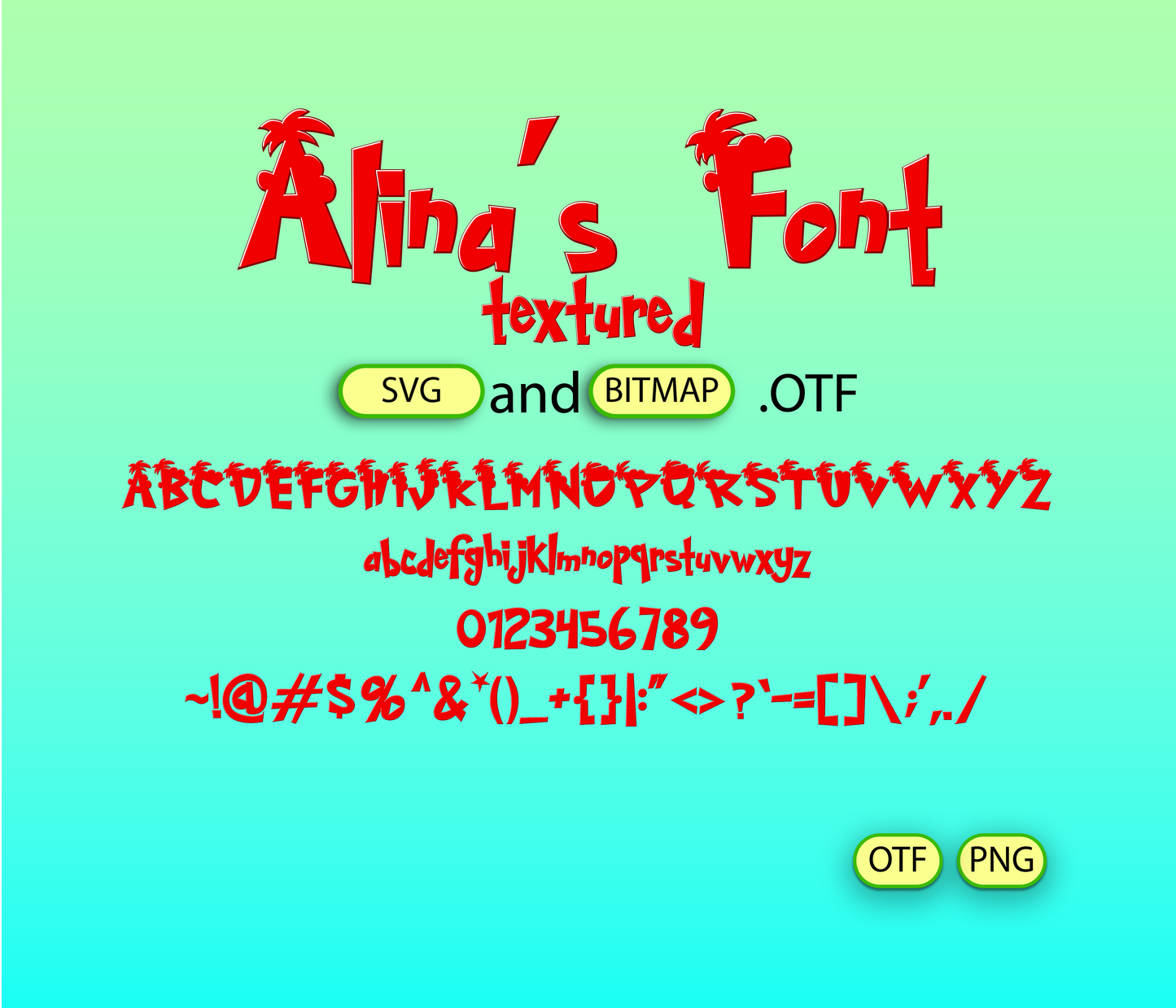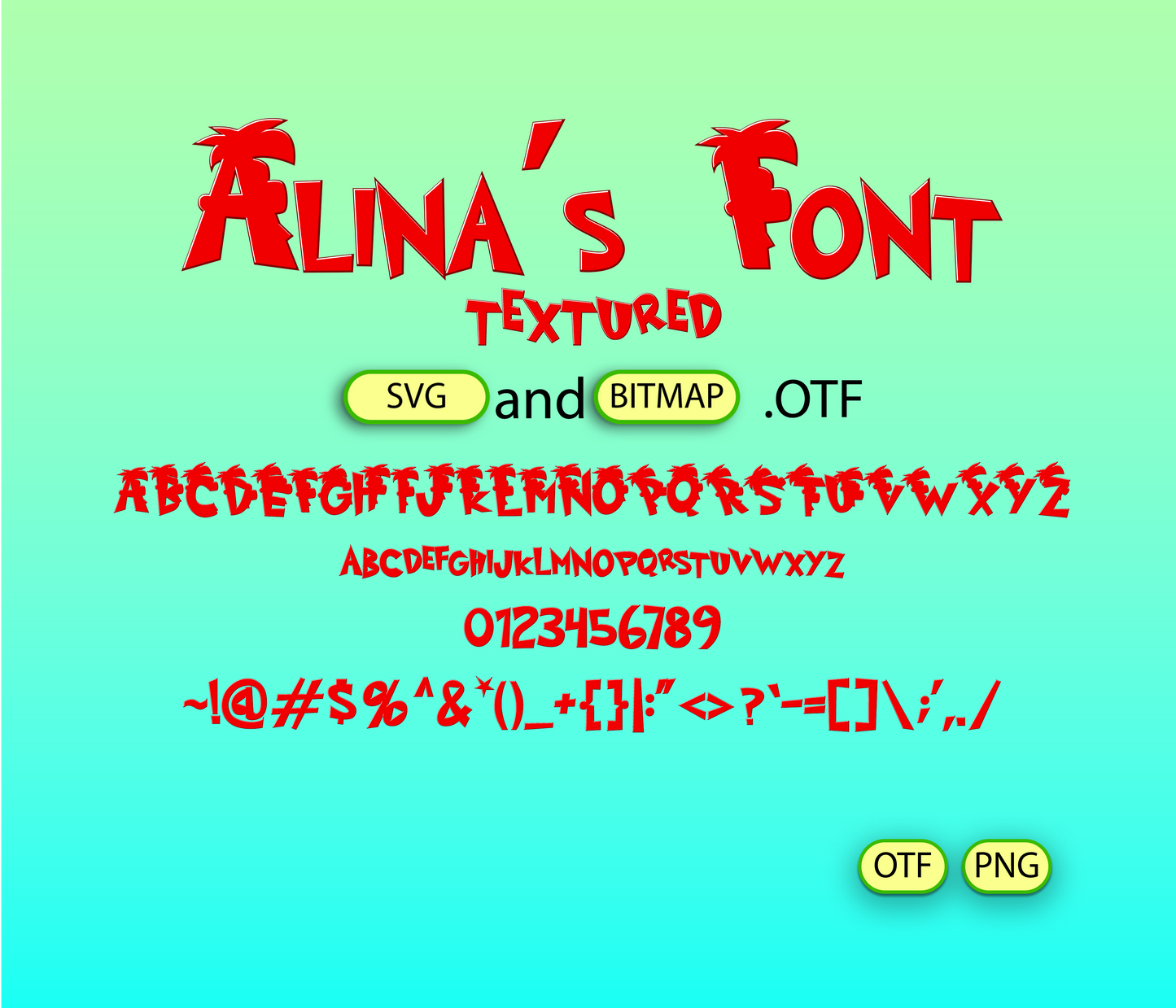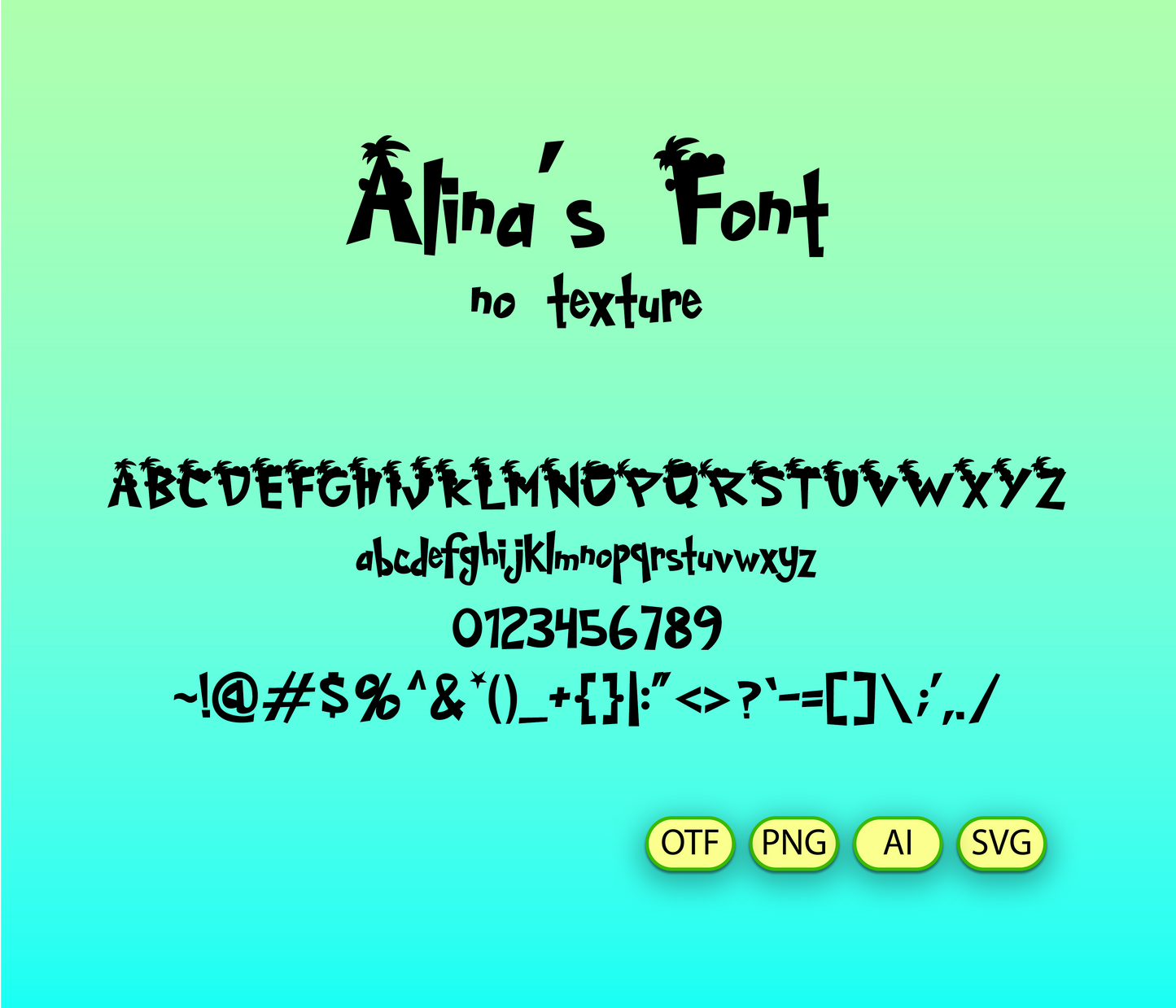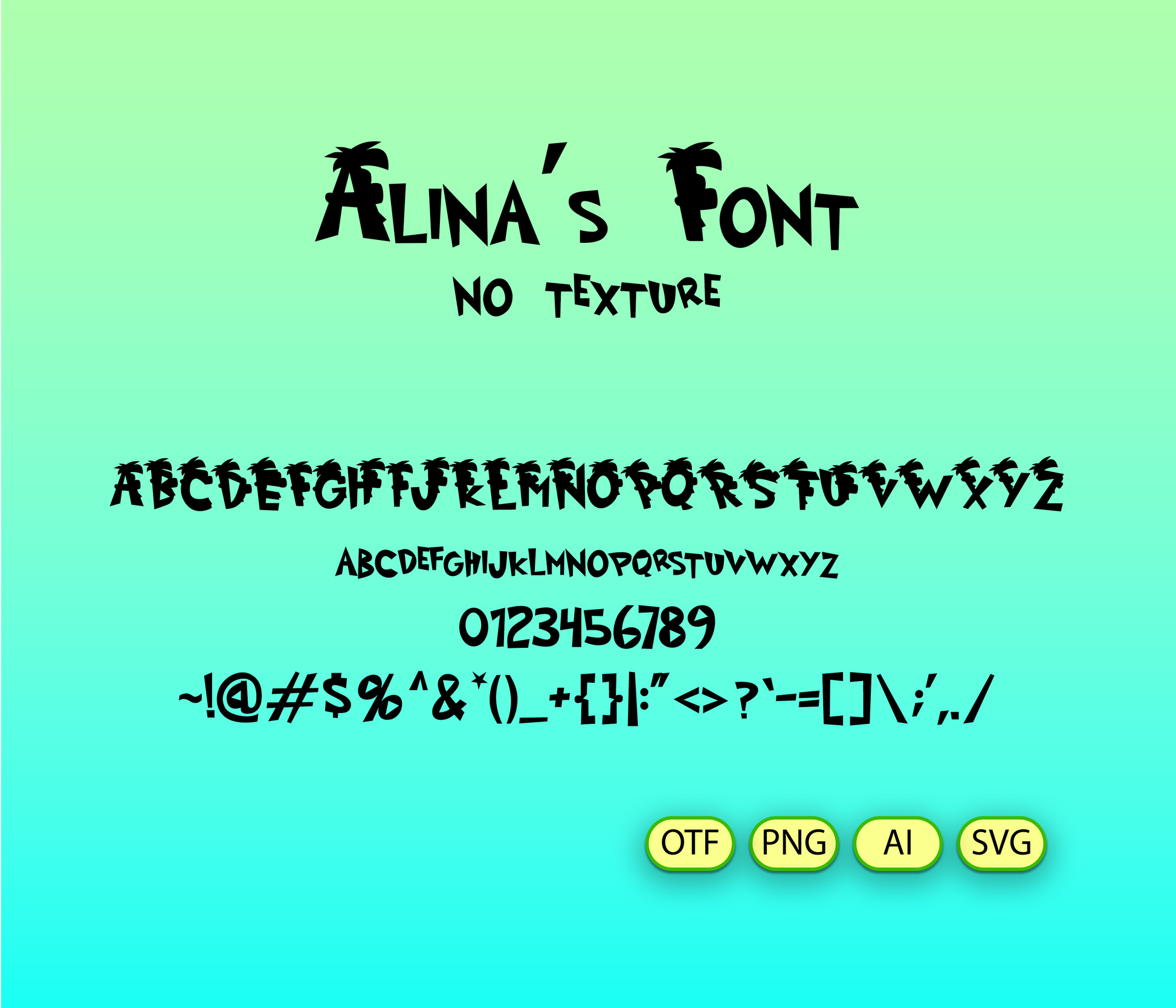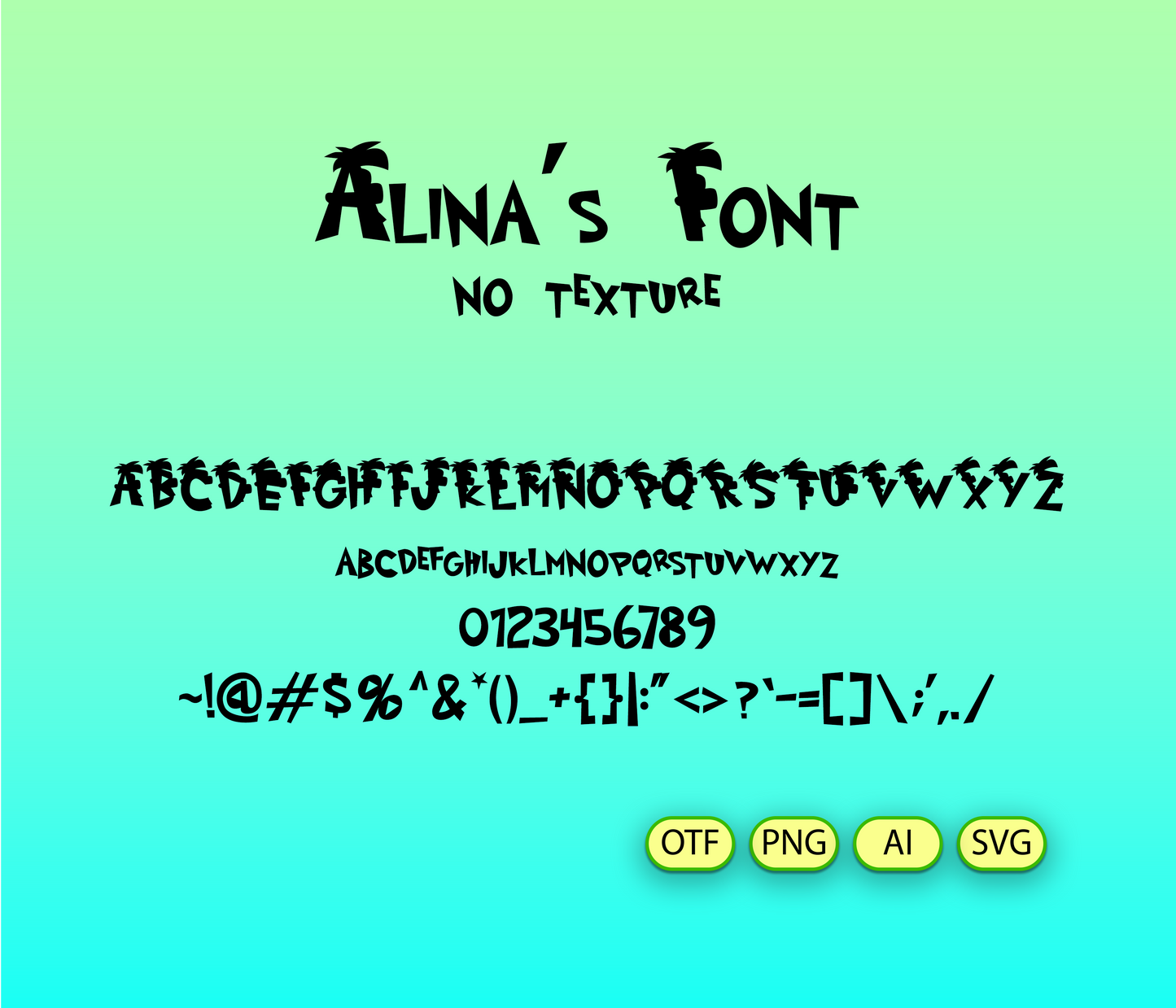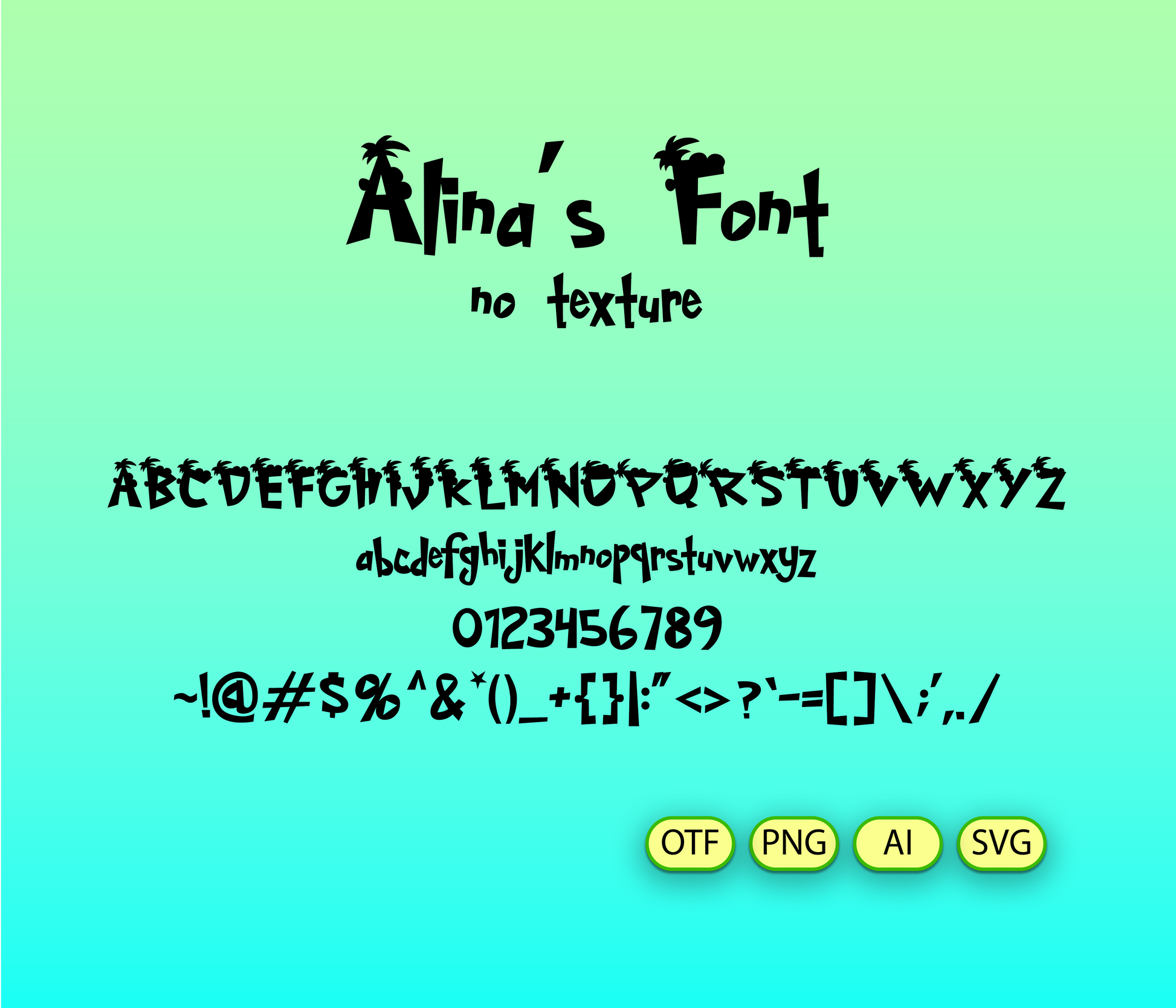
Summer Inventors Font Textured
Summer Inventors Font Creative Kids Adventure
Step into the imaginative world of endless summer possibilities with our Summer Inventors font, capturing the essence of childhood creativity and backyard engineering marvels. Perfect for children's parties, STEM events, creative workshops, and educational professionals, this font brings the inventive, enthusiastic energy of young innovators and summer adventures to your projects. Create exciting invitations, educational merchandise, or digital content with the bold, innovative spirit of kids turning ordinary summer days into extraordinary adventures.
Our Summer Inventors font features playful, geometric letterforms with engineering-inspired elements reflecting the creative aesthetic of childhood invention and summer exploration. The characters blend youthful energy with technical precision, creating perfect fusion of fun design and innovative thinking.